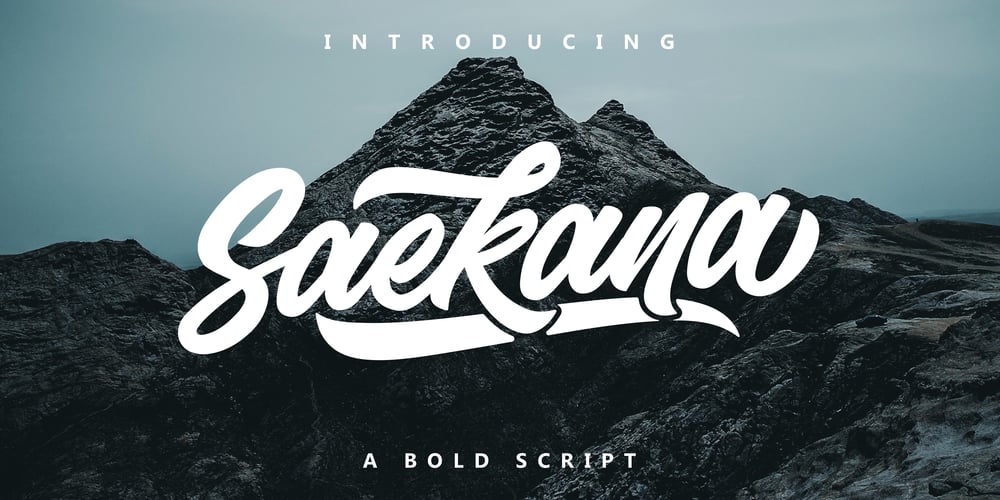
Saekana Script Font Family was designed by Faisal Tanjung and published by sizimon. Saekana Script contains 3 styles and family package options. Saekana Script is a bold font. Saekana is great for logotype, website header, fashion design, wedding card design and any more. Saekana Script comes in Rough and Clean style. It contains a full set of lower & uppercase letters, a large range of punctuation, numerals, and multilingual support. What’s Included: – PUA encode – Bonus Swash and border – Multi-lingual support (Danish,Finnish,English, Spanish, Dutch, German, Icelandic, Italian, Norwegian, Portuguese, Indonesian, Swedish) If you have any question please do not hesitate to contact me.Thank You!